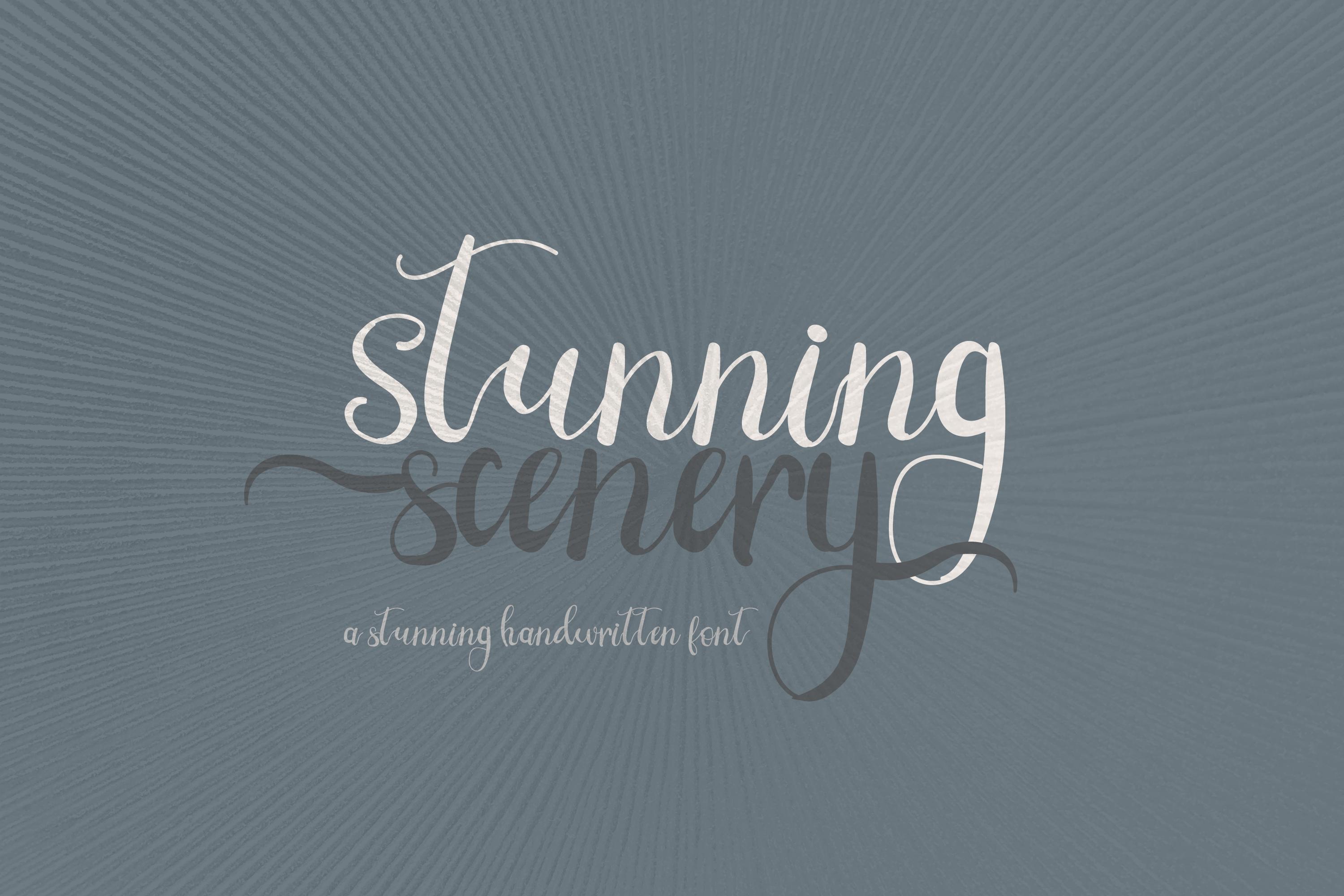
Stunning Scenery Font Description
Stunning Scenery is a sweet and beautiful handwritten script font. Get inspired by its incredibly elegant feel, and use it to turn any design project into a standout! Stunning Scenery is PUA encoded which means you can access all of the glyphs and swashes with ease!